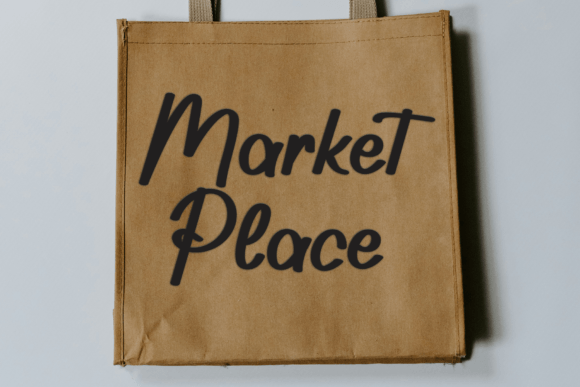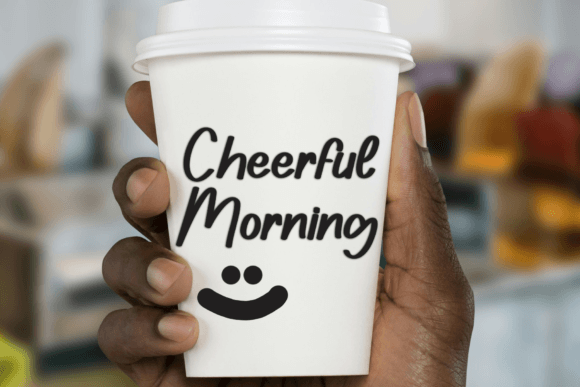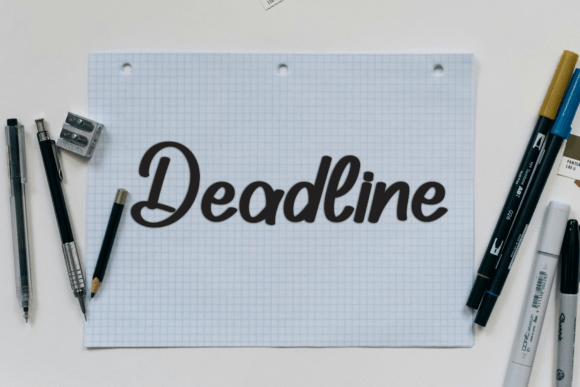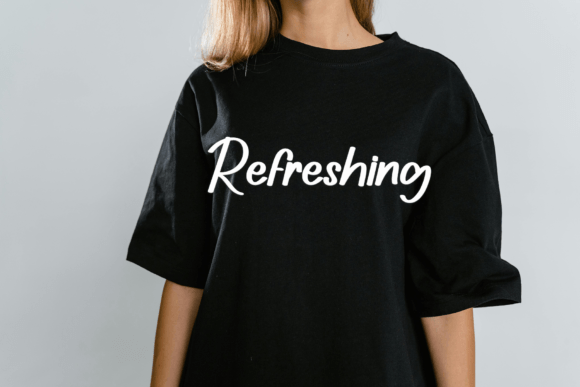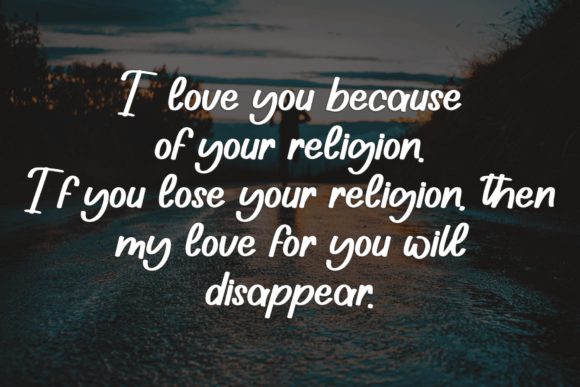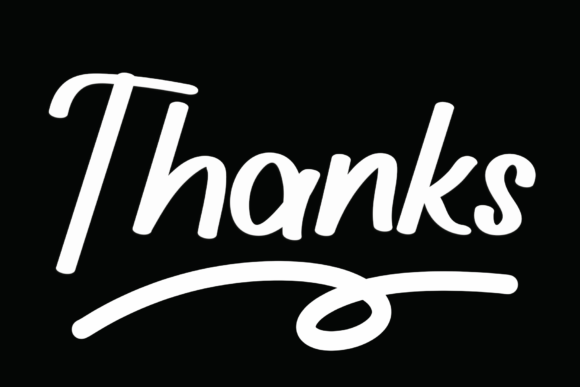
Unleashing the Beauty of Handwritten Charm: The Power of Calligraphy Font
You know that moment when you stumble upon the perfect font to elevate your design? It’s like a spark of inspiration, and you can’t help but feel a rush of excitement. For me, it was discovering a stunning Calligraphy Font that transformed a simple quote into a work of art. The elegance, the sophistication, and the charm it brought to the design were truly captivating.
Calligraphy Font is more than just a font style – it’s a way to add a personal touch to your designs. Whether you’re creating wedding invitations, thank you cards, or logos, this font style can make your work stand out. As a designer, you understand the value of a well-chosen font in making a lasting impression. And with the Calligraphy Font, you can create designs that are not only visually appealing but also convey a sense of warmth and personality.
Key Features of Calligraphy Font
- Unique Characteristics: Hand-crafted, cursive, and elegant design, with intricate flourishes and subtle nuances, evoking a sense of sophistication and refinement.
- Style Variations: Available in multiple styles, including Regular, Italic, Bold, and Bold Italic, allowing for added flexibility and creativity in design.
Calligraphy Font Review
Overall, I’m quite impressed with the Calligraphy Font. ✨ It has a beautiful, elegant feel to it that’s perfect for creating a luxurious or vintage look in your designs. The font is highly customizable, with a range of styles and sizes available, which makes it easy to adapt to different design contexts.
The Calligraphy Font also works well with a variety of color schemes and backgrounds, which is a major plus in my book. ✨ It’s a great choice for creating invitations, wedding designs, and other special occasion materials where you want to make a big impression.
Here are some specific things that work well with the Calligraphy Font:
- Elegant and luxurious feel
- Works well with a variety of color schemes and backgrounds
- Perfect for creating invitations and special occasion materials
That being said, there are a few limitations to consider:
- May be difficult to read in small sizes
- Can be quite ornate, which may not be suitable for all design contexts
- Not suitable for body text, as it’s quite decorative
Overall, I’d highly recommend the Calligraphy Font for designers looking to add a touch of elegance and sophistication to their designs. Just be mindful of its limitations, and you’ll be golden.
Practical Application Guide: Calligraphy Font
Getting the Most Out of Calligraphy Font
To get the most out of calligraphy font, use it sparingly and in strategic locations. Use it for headings, titles, or quotes to add a touch of elegance. Experiment with different font styles and sizes to create a unique look. You can also combine calligraphy font with other fonts to create a visually appealing design.
Calligraphy font is commonly used in wedding invitations, greeting cards, and other formal documents. It’s also used in graphic design, logos, and branding materials to add a touch of sophistication. You can use it to create custom signage, posters, or flyers to make a lasting impression.
What software can I use to create a Calligraphy Font?
There are several software options available for creating calligraphy fonts, including:
Can I use a Calligraphy Font for body text?
While calligraphy fonts can be beautiful and elegant, they are often best suited for use as headings